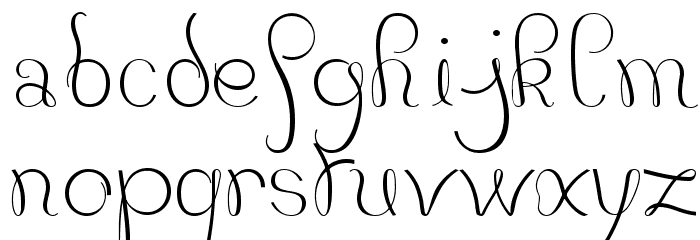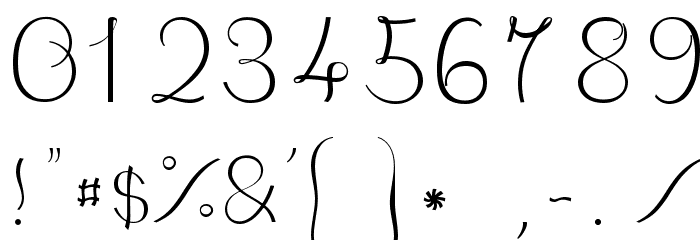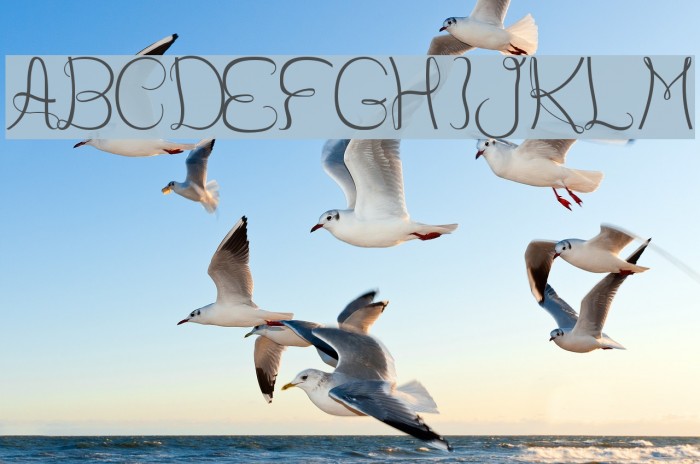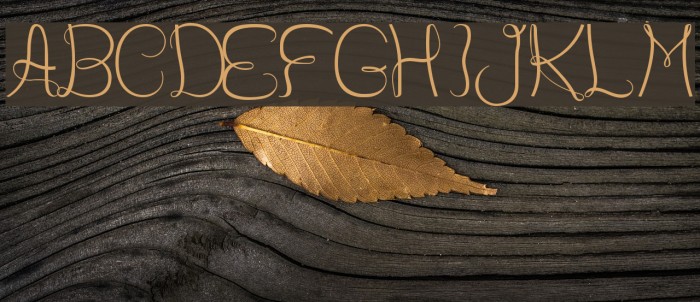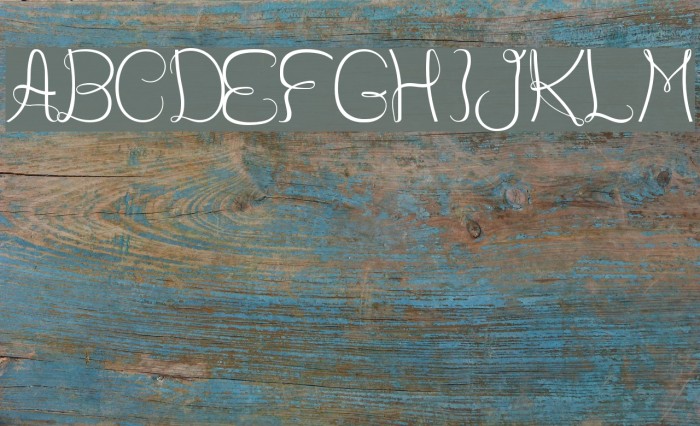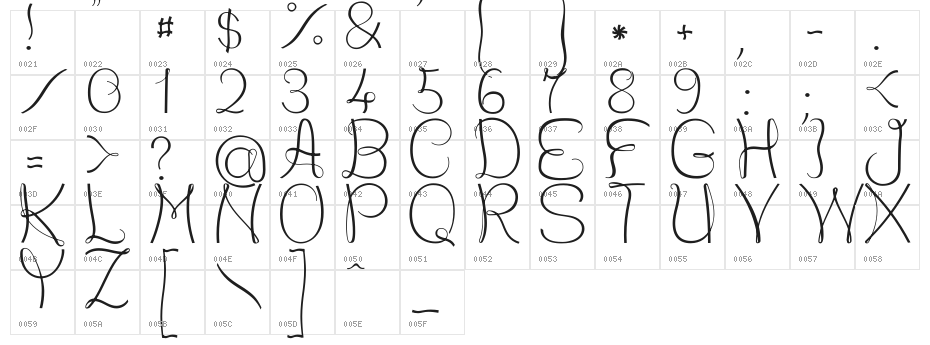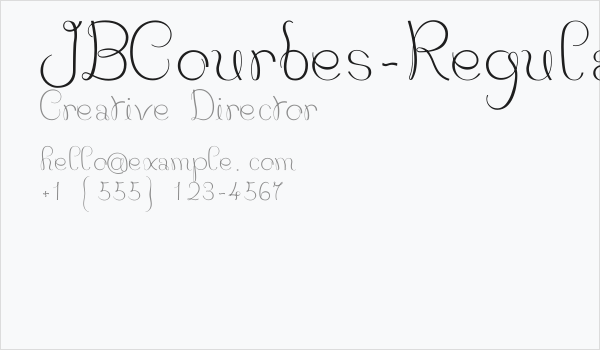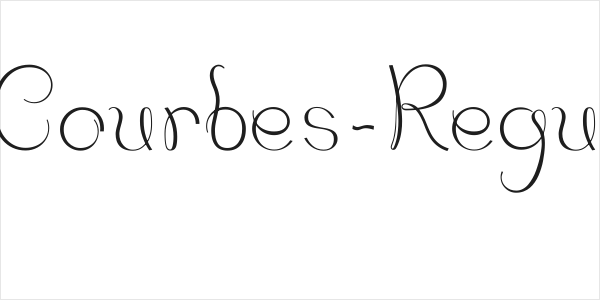
JBCourbes-Regular Font
This font features a whimsical and elegant design with a handwritten style. The characters are crafted with smooth, flowing lines and subtle curves, giving it a playful yet sophisticated appearance. The uppercase letters are tall and slender, with unique flourishes that add a touch of creativity. The lowercase letters maintain a consistent style, with some characters featuring distinctive loops and swirls. Numbers are rounded and maintain the same artistic flair as the letters. Special characters are thoughtfully designed to match the overall aesthetic, making this font versatile for various creative projects.
A whimsical and elegant handwritten font with flowing lines and creative flourishes.